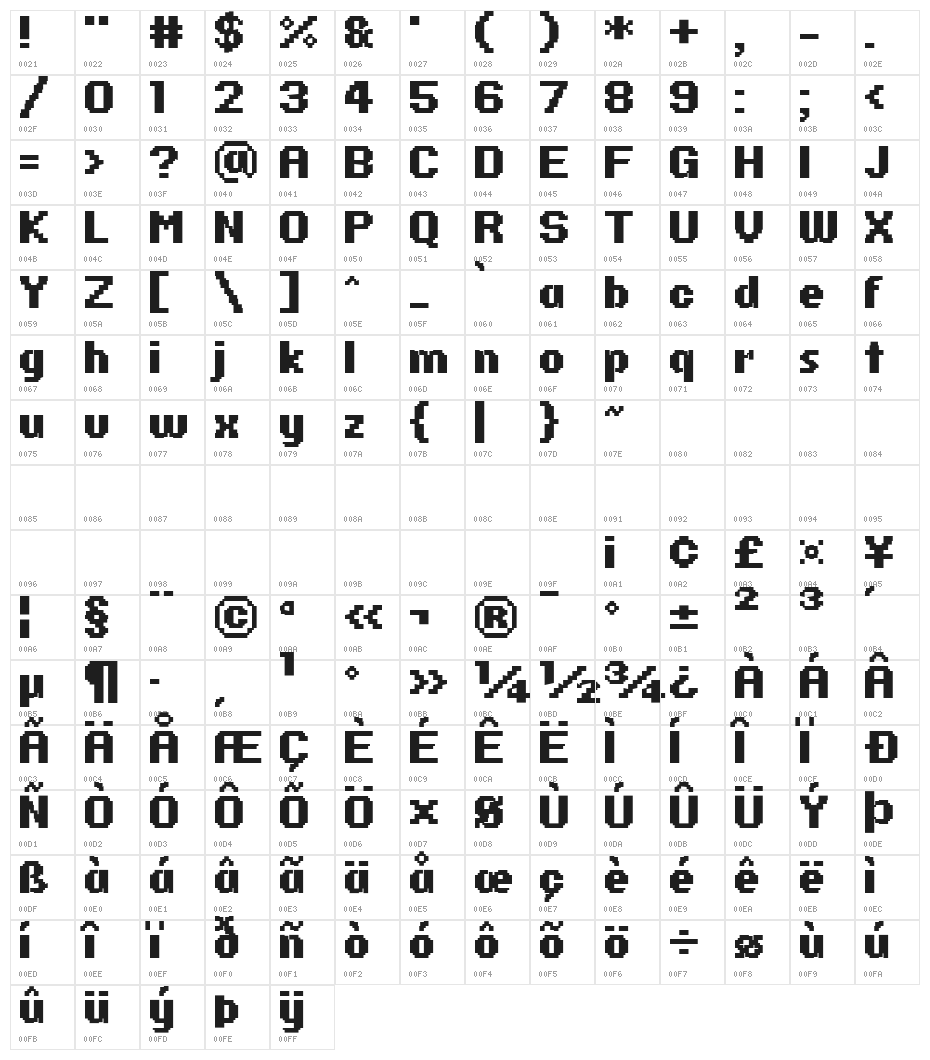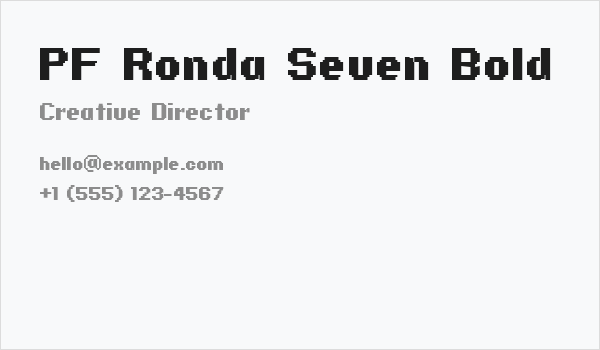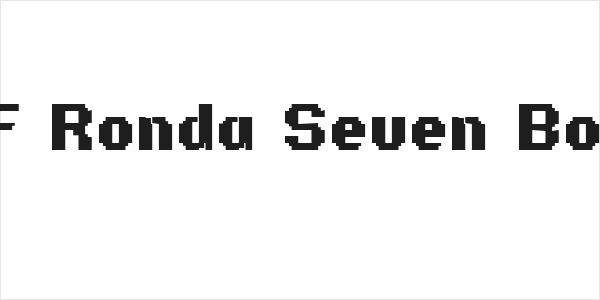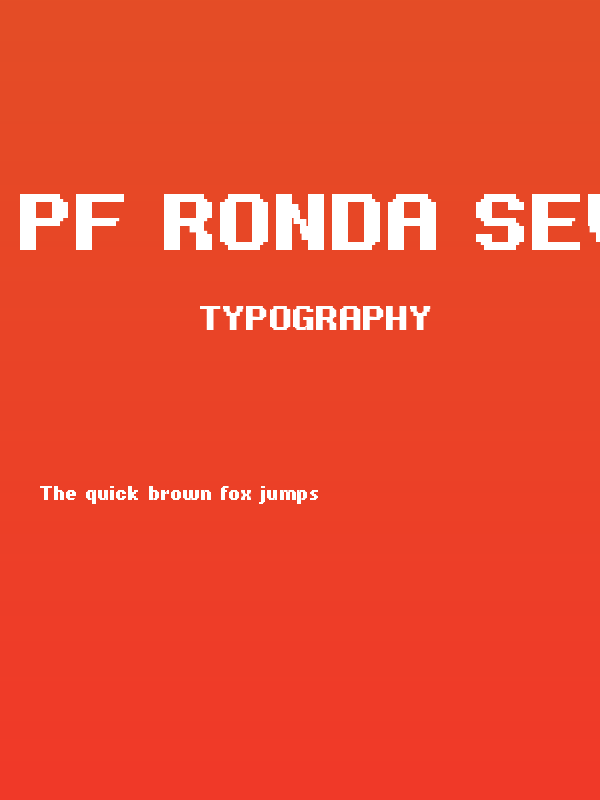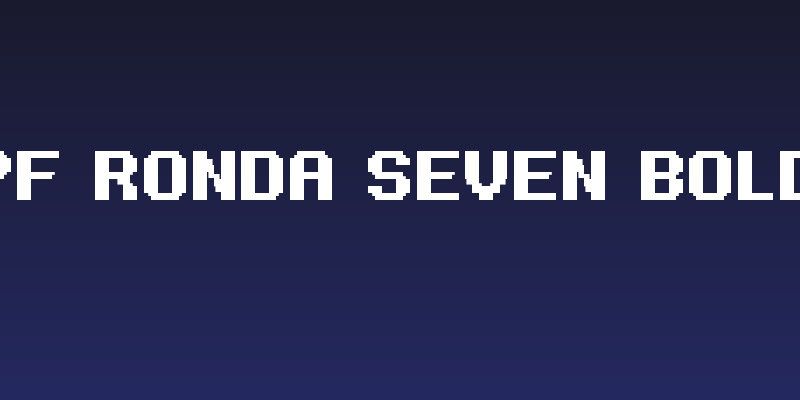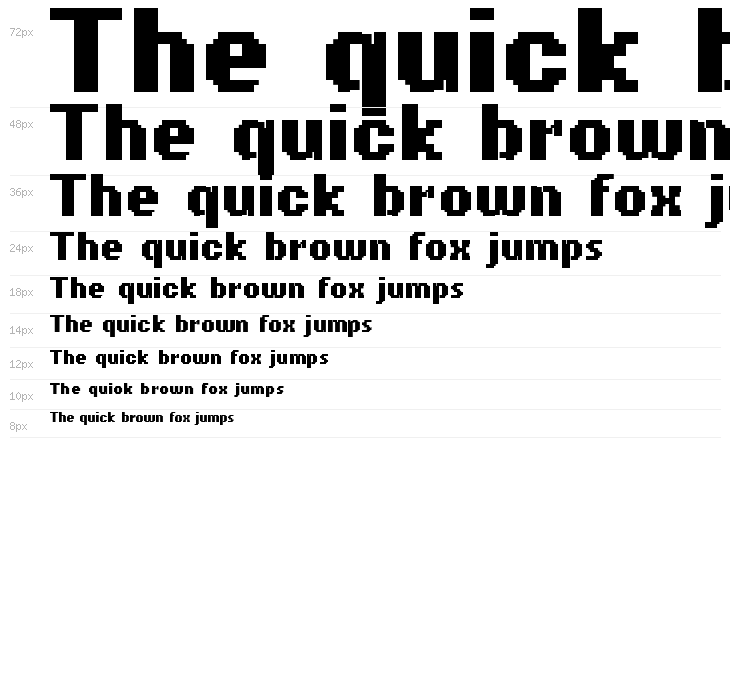
PF Ronda Seven Bold Font
PF Ronda Seven Bold Description
This font features a bold, pixelated design with a distinct blocky appearance. Each character is constructed with a grid-like structure, giving it a retro, digital feel reminiscent of early computer graphics. The uppercase and lowercase letters maintain a consistent width, contributing to a uniform look. Numbers and special characters follow the same pixelated style, ensuring visual coherence across all glyphs. The font's bold weight and geometric shapes make it highly legible, even at smaller sizes, while its unique style adds a playful, nostalgic touch to any design.
| Overall Style | Retro, Digital |
| Proposed Projects | Ideal for video game graphics, retro-themed posters, digital art, and tech-related branding. |